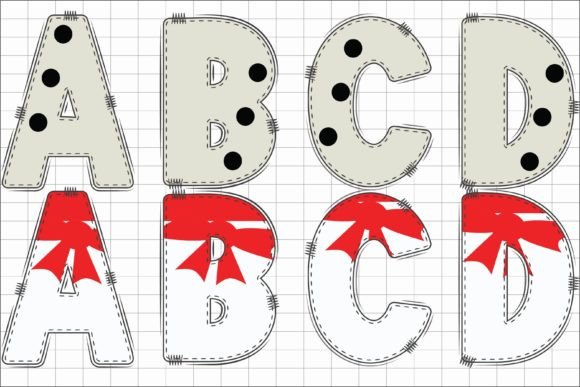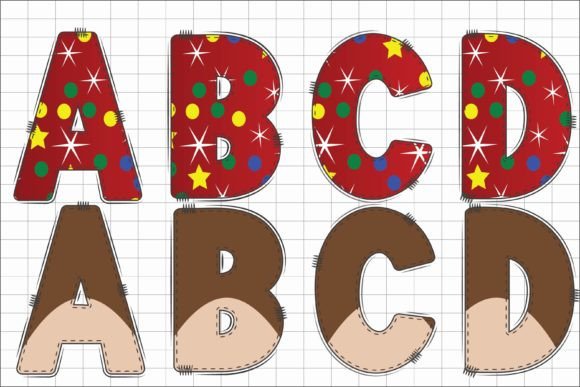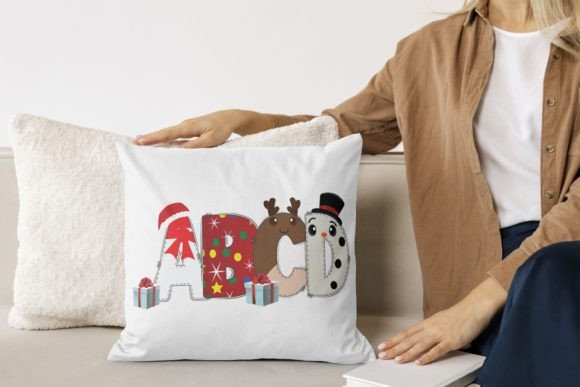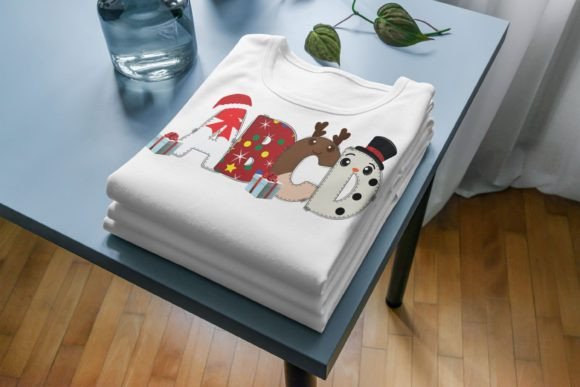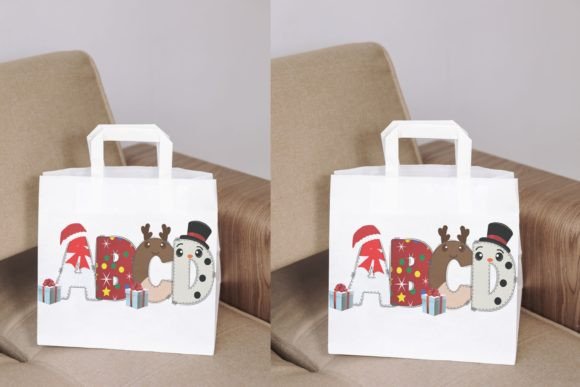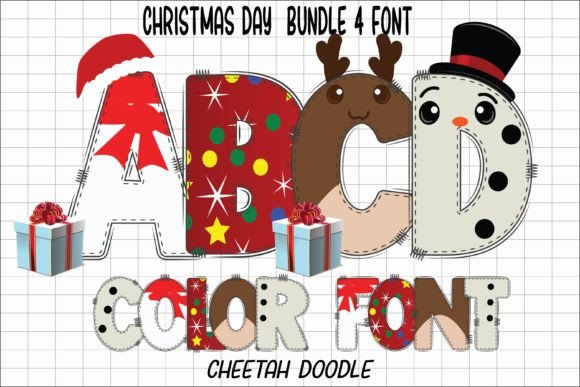
Introducing Christmas Day Font: Add a Festive Touch to Your Designs
Are you looking for a font that captures the essence of Christmas and adds a touch of festivity to your designs? Look no further than the Christmas Day Font! This adorable and decorative color font is perfect for creating stunning Christmas-themed designs, shirts, crafts, and cards that will leave a lasting impression.
What Makes Christmas Day Font So Special?
Christmas Day Font is a unique and eye-catching font that is sure to make your projects stand out. Its festive and colorful design makes it perfect for a wide range of applications, from holiday cards and invitations to t-shirts and craft projects. The font’s playful and cheerful vibe is sure to evoke the spirit of Christmas and bring joy to anyone who sees it.
How to Use Christmas Day Font in Your Designs
Using Christmas Day Font in your designs is easy and fun. Here are some ideas to get you started:
- Create stunning Christmas cards and invitations with custom text and designs.
- Design festive t-shirts, hoodies, and other apparel for the holiday season.
- Make beautiful and unique craft projects, such as ornaments, gift tags, and decorations.
- Add a personal touch to your holiday gifts with custom gift wrapping and labels.
Tips and Tricks for Working with Christmas Day Font
To get the most out of Christmas Day Font, here are some tips and tricks to keep in mind:
- Experiment with different colors and combinations to create unique and eye-catching designs.
- Use the font in combination with other festive graphics and elements to create stunning compositions.
- Don’t be afraid to get creative and try new things – the playful and festive nature of the font makes it perfect for experimenting with different styles and techniques.
Get Ready to Make Your Designs Merry and Bright!
Don’t miss out on the opportunity to make your designs merry and bright with Christmas Day Font. With its festive and playful vibe, this font is sure to bring joy and cheer to anyone who sees it. So go ahead, get creative, and make this holiday season one to remember with Christmas Day Font!